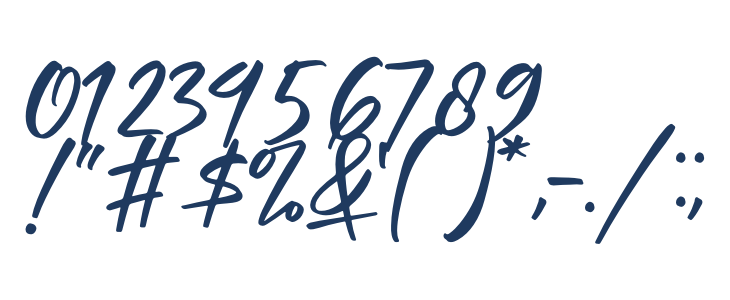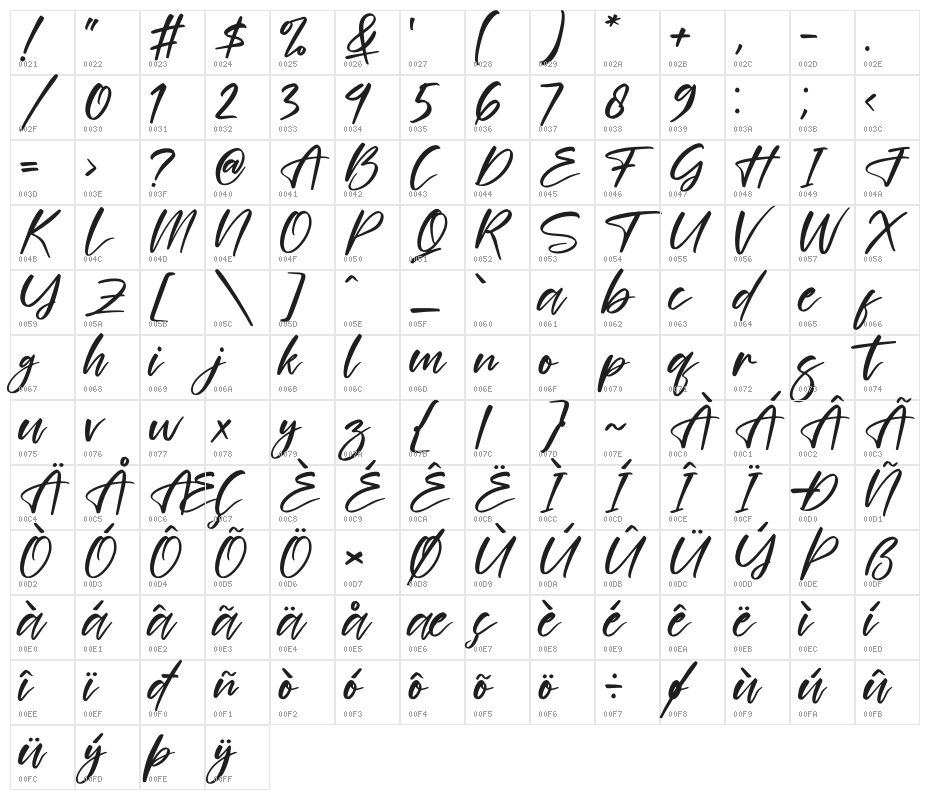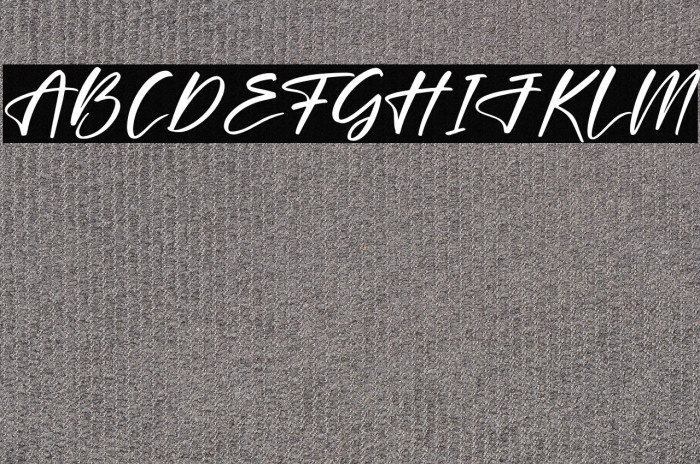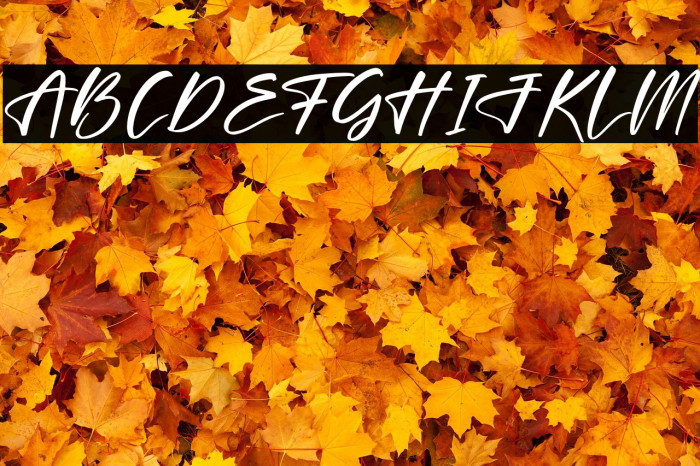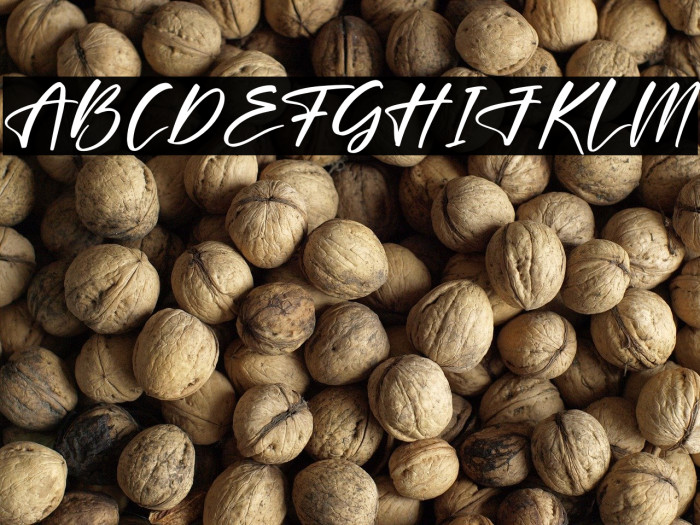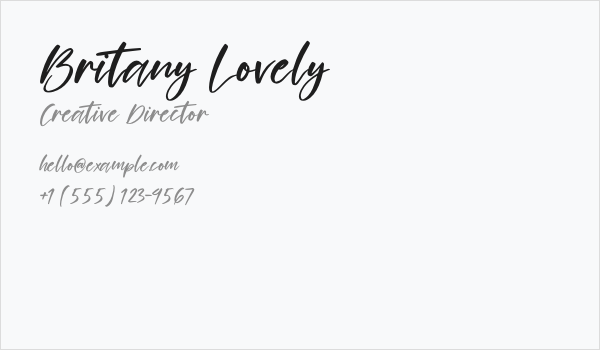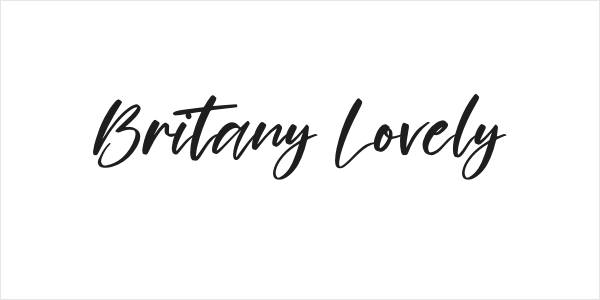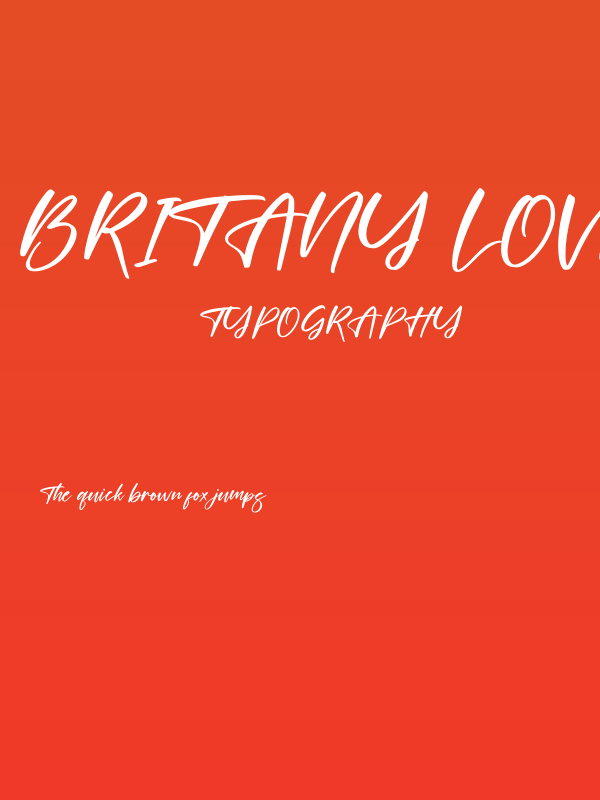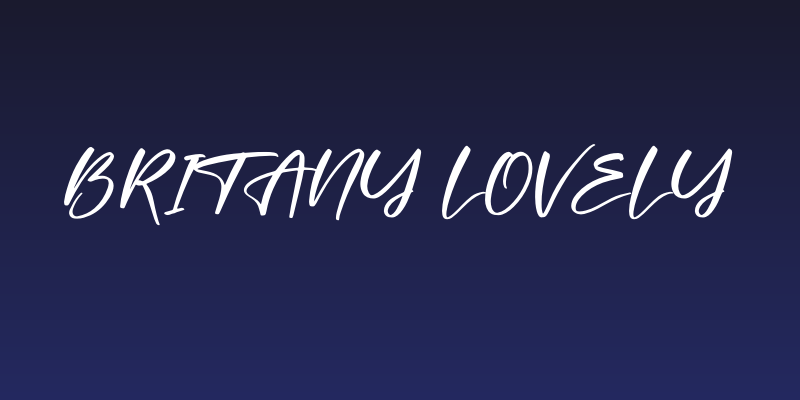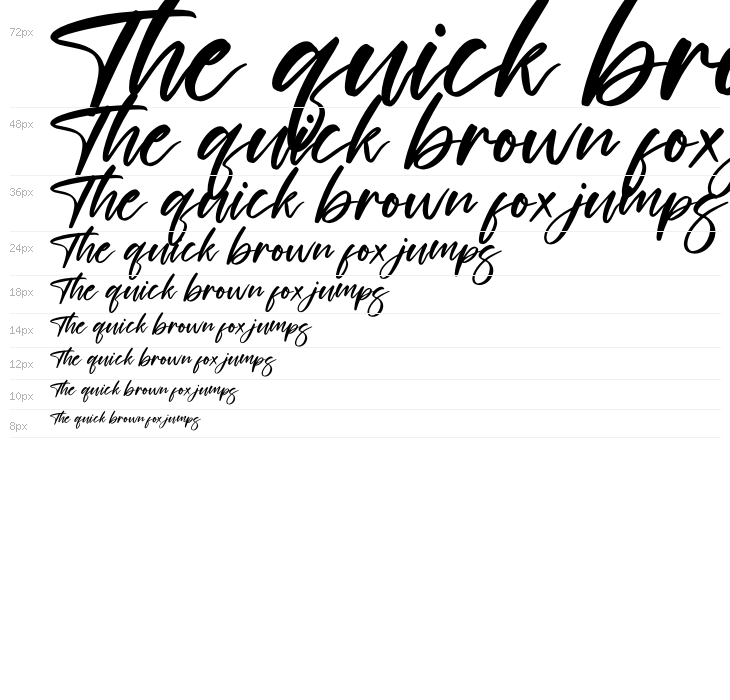
Britany Lovely Font
Britany Lovely Description
This font exudes a lively and expressive character, with its fluid, handwritten style that mimics the natural flow of cursive writing. The letters are slightly slanted, adding a dynamic and energetic feel. The strokes vary in thickness, providing a medium contrast that enhances readability while maintaining an artistic flair. The uppercase letters are bold and prominent, while the lowercase letters are more delicate, creating a harmonious balance. The numerals and special characters are crafted with the same attention to detail, ensuring consistency throughout the font. This typeface is perfect for projects that require a personal touch or a creative, informal vibe.